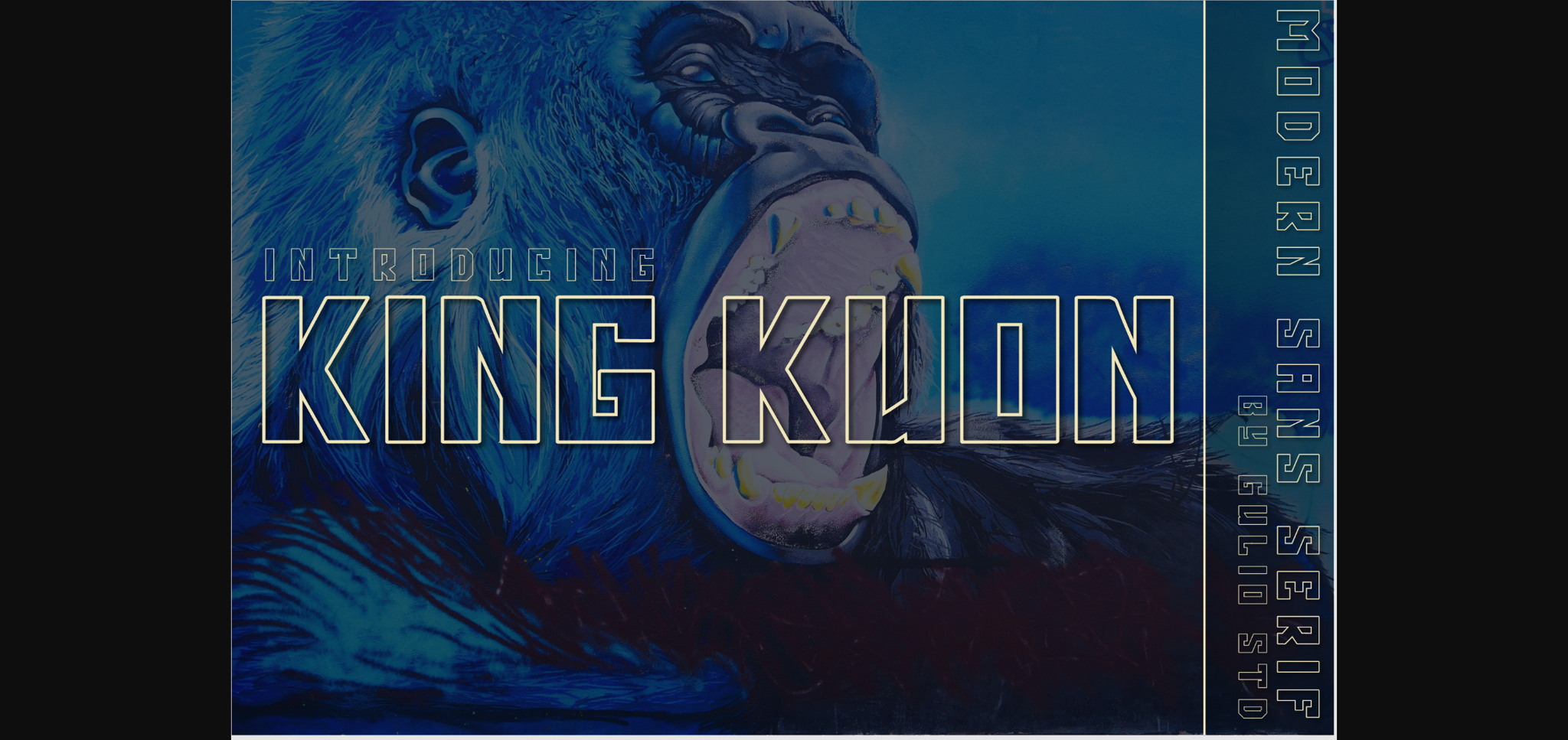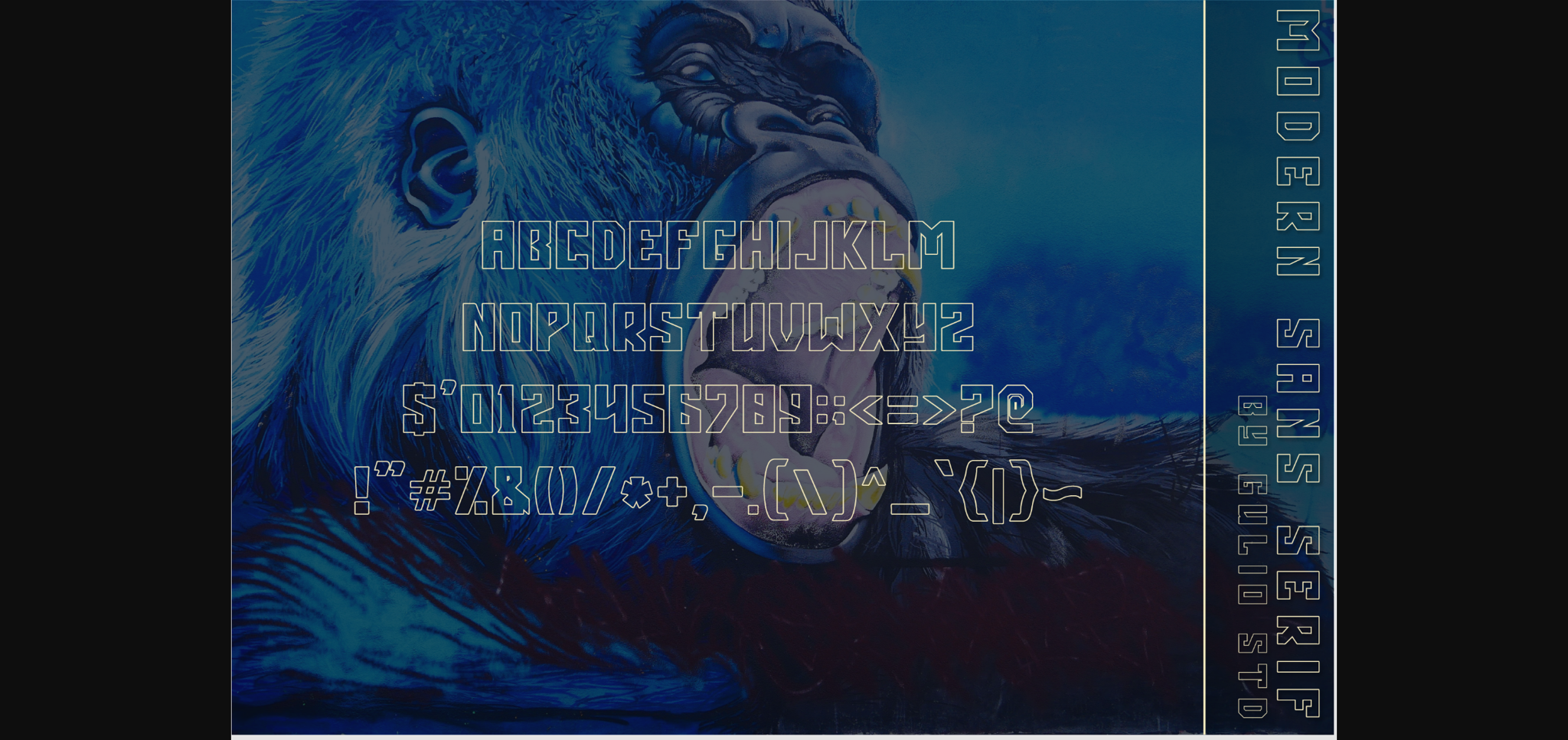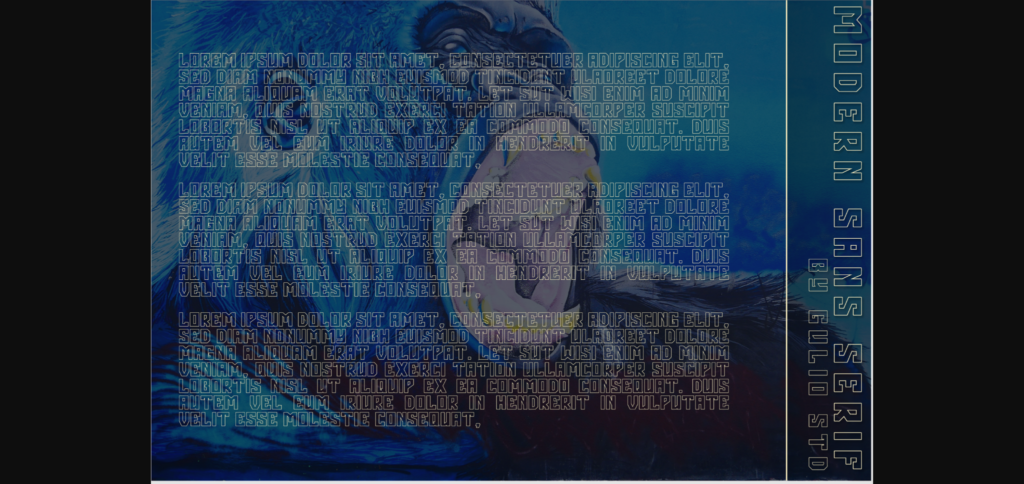
King Kuon Font
About King Kuon Font
King Kuon is a powerful and sophisticated sans serif font. Its strong, uncompromising style is felt through controlled lettering and a modern touch.